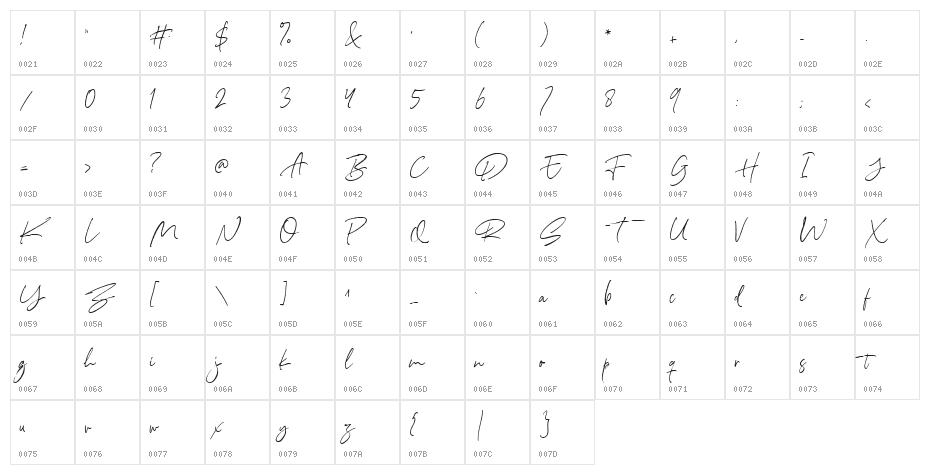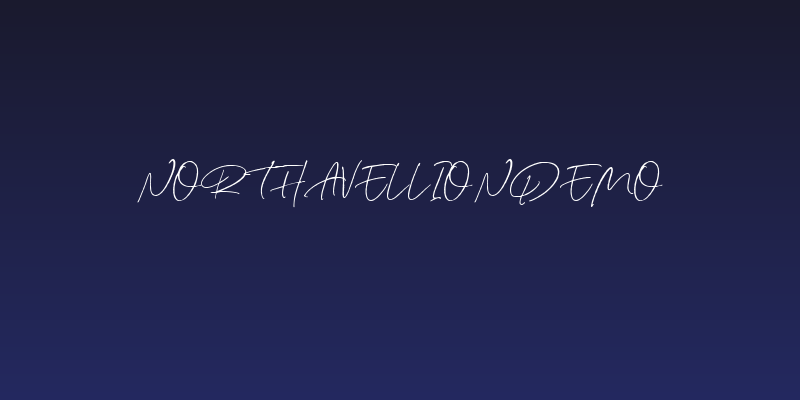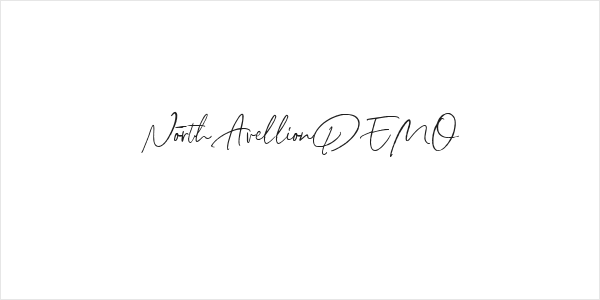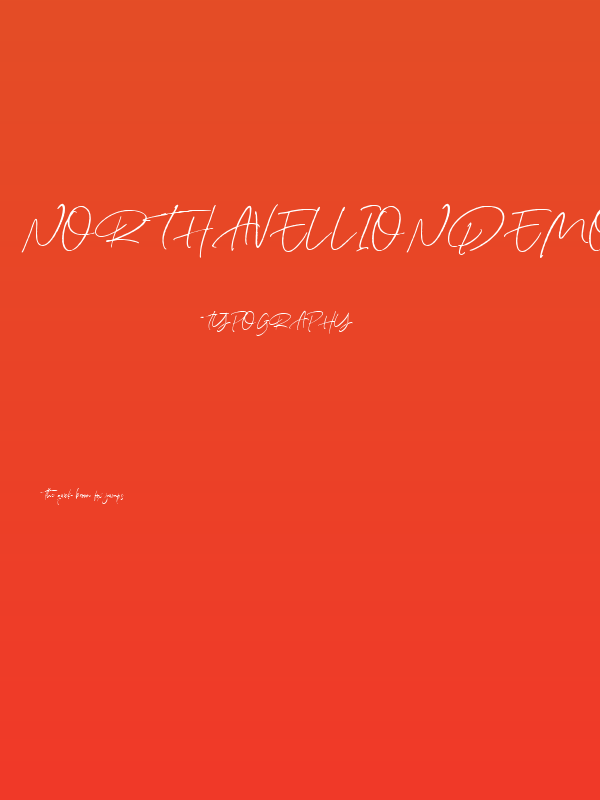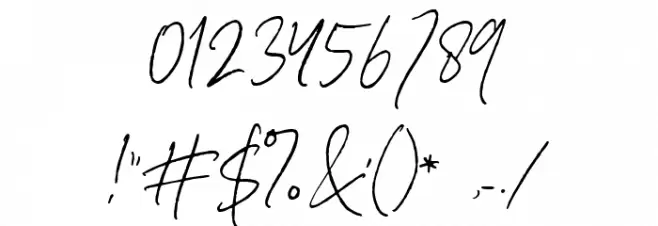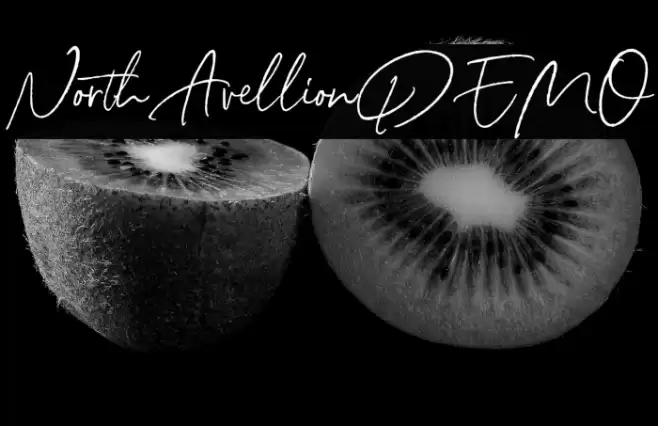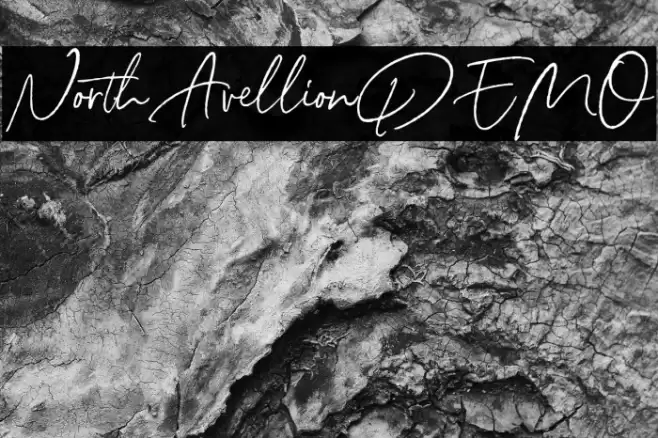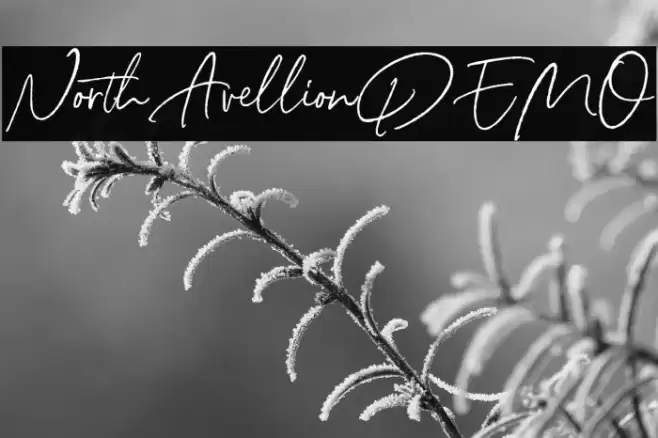
NorthAvellionDEMO Font
This font exudes a sense of elegance and fluidity, characterized by its cursive, handwritten style. The letters are connected with smooth, flowing strokes, giving it a natural and personal touch. The uppercase letters are slightly more structured, while the lowercase letters exhibit a more freeform, artistic flair. The numerals and special characters maintain the same fluidity, ensuring consistency across the font. The overall appearance is both sophisticated and approachable, making it suitable for a variety of creative applications.
| Overall Style | Elegant, Artistic |
| Proposed Projects | Ideal for wedding invitations, personal branding, greeting cards, and artistic projects that require a personal touch. |